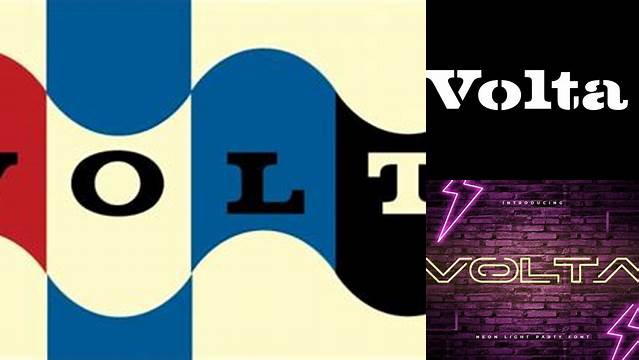
Hey everyone! Let's dive into the amazing world of typography, specifically focusing on the Volta Font! This article is your ultimate guide to everything Volta Font related, offering insights on how to get it free, its unique characteristics, and how you can use it to level up your design game. Whether you're a seasoned designer or just starting, this is a must-read.
Volta Font: Your Gateway to Stylish Design
So, what exactly is the Volta Font? Simply put, it's a fantastic typeface known for its clean lines, modern aesthetic, and versatility. It's like the perfect outfit – it just works in so many different contexts! From websites and logos to print materials and social media graphics, the Volta Font can significantly enhance the visual appeal of your projects. Its sleek and contemporary design makes it a go-to choice for designers who want to convey a sense of sophistication and professionalism. The Volta Font family usually includes various weights and styles, giving you the flexibility to create diverse and visually engaging designs. When you're looking for a font that can seamlessly adapt to different design needs, the Volta Font truly shines. The ease of readability and the visual harmony it brings to any design is a testament to its well-crafted design. The Volta Font is not just a typeface; it is a design tool that provides a foundation for creativity and style. Considering its extensive usage in design, understanding and incorporating the Volta Font is a valuable skill for designers.
Volta Font Characteristics: What Makes It Special
The Volta Font is special due to several key characteristics that set it apart. One of the most notable features is its clean and minimalist design. This allows for great readability and versatility across various applications, from print to web design. The design of the Volta Font is often described as modern and geometric. The simplicity of the letterforms makes it a favorite choice for contemporary branding and user interfaces. Furthermore, the Volta Font typically offers a range of weights and styles, letting you control the feel and appearance of your text. Whether you want a thin, elegant font for headlines or a bold version for emphasis, the Volta Font provides a style for your needs. Beyond its visual characteristics, the Volta Font excels in terms of performance. Many designers appreciate how quickly the Volta Font renders in different environments, and it is very important when you design websites. Because of its design, it is great for both headings and body text, ensuring consistency and readability. It is a top choice among designers and is easy to understand and implement. These different characteristics contribute to its popularity in the design world, making it a versatile and reliable choice for various projects.
Volta Font vs. Other Fonts: A Comparison
When considering the Volta Font, it's helpful to compare it to other popular typefaces. Unlike the often ornate and embellished characteristics of serif fonts like Times New Roman or Garamond, the Volta Font is a sans-serif typeface. This means it lacks the small decorative strokes, known as serifs, at the ends of the letters. Sans-serif fonts like the Volta Font are known for their clean and modern look, perfect for digital displays and contemporary designs. Compared to fonts such as Helvetica or Arial, the Volta Font may have a slightly more unique character. The Volta Font often features a more geometric and modern look that is often considered to be stylish and eye-catching. Another font to compare is Open Sans or Roboto. Both of these are known for their high legibility and are frequently used for body text. However, the Volta Font can have a more distinctive personality. It can depend on your project needs, but if your project is meant to convey modernity, the Volta Font is a great choice. Choosing between the Volta Font and others comes down to the specific needs of your design project.
Using Volta Font in Web Design: Best Practices
Using the Volta Font in web design can elevate your site's visual appeal and enhance readability. Start by selecting the appropriate weight and style for different text elements. Use a lighter weight for body text to maintain a clean and uncluttered look. Then, use a bolder weight for headings and subheadings. This creates a clear visual hierarchy that guides readers through the content. Ensure the Volta Font is properly embedded in your website's code, using techniques such as @font-face in your CSS or by using a service like Google Fonts. Doing this makes sure the font renders correctly across all devices. Consider the font size and line spacing for readability. A slightly larger font size and comfortable line spacing enhance the reading experience. To maintain a consistent look and feel, stick to a limited number of font sizes and styles. Also, remember to test how the Volta Font performs on different screen sizes and browsers. Responsive design is critical, and ensuring the font renders beautifully on both desktop and mobile devices is essential. By following these guidelines, you can leverage the Volta Font to create a modern and user-friendly website. This font will enhance the user experience, making it visually appealing and easy to navigate. The best thing about the Volta Font is that it can work well for a variety of designs.
Volta Font in Branding: Creating a Unique Identity
Using the Volta Font in your branding can help you create a strong and unique identity. Its clean lines and modern aesthetic work well for brands aiming for a sophisticated, contemporary image. When using the Volta Font for branding, consider how it interacts with your brand's other visual elements, such as colors, imagery, and logo design. The Volta Font can serve as the primary typeface for your logo, website, marketing materials, and other brand assets. Consistency is key! Using the Volta Font across all your branding efforts will reinforce your brand recognition and create a cohesive brand experience. Choose the Volta Font weights and styles that align with your brand's personality. For example, a bolder weight might suggest strength and confidence, while a lighter weight gives off a sense of elegance and minimalism. Make sure your branding also adheres to accessibility guidelines. The Volta Font is a good choice because it is usually readable in various contexts. The Volta Font can become a vital element of your brand, supporting the visual identity. The Volta Font is a great choice if you want to make your brand stand out.
Volta Font for Logos: Designing Effective Visual Marks
The Volta Font is a fantastic choice for logo design due to its modern and versatile qualities. Its clean lines and balanced design make it suitable for a range of industries and styles. When using the Volta Font for a logo, consider its impact on your brand identity. The right style can reflect your brand's values and personality, whether it's a sense of professionalism, creativity, or innovation. Experiment with different weights and styles of the Volta Font to achieve the desired effect. A bold, impactful weight might suit a tech company, while a lighter weight could be better for a luxury brand. Ensure the logo is easy to read at various sizes, from business cards to large billboards. The Volta Font's simplicity helps maintain clarity and legibility. Integrate the Volta Font into the overall visual identity of your brand. This includes aligning it with colors, imagery, and other design elements to establish a cohesive brand experience. The logo should be a visual representation of your brand. The best thing about Volta Font is that it can be a core component in a strong visual mark. By using the Volta Font, you can design a powerful logo that looks great and connects with your audience.
Volta Font on Social Media: Creating Engaging Content
The Volta Font can significantly boost your social media content, making it more engaging and visually appealing. Because of its clean design, the Volta Font makes your text easy to read and more impactful. Choose the Volta Font weights and styles that suit your brand's message. Bold styles can grab attention in posts. Use the Volta Font for captions, headlines, and other text elements on social media. The versatility of the Volta Font allows you to match your content. Ensure your social media graphics and posts are consistent with your brand's visual identity. By incorporating the Volta Font, you establish a recognizable brand presence across all platforms. Optimize the font size and layout to fit different social media formats, such as Instagram stories, Facebook posts, and Twitter. When creating social media content, always make sure your text is legible. The Volta Font makes a good choice, as it is readable in different contexts. You can enhance the overall visual appeal of your social media profiles and create a cohesive and engaging brand experience. Use Volta Font on social media to show off your brand.
Volta Font and Technical Documentation: Enhancing Clarity
The Volta Font is a great choice for technical documentation. The Volta Font allows you to enhance clarity and make your document easy to read. Use the Volta Font to enhance your documents. The Volta Font helps you enhance the clarity of your technical documentation. The Volta Font allows you to enhance your documents, creating clarity and accessibility.